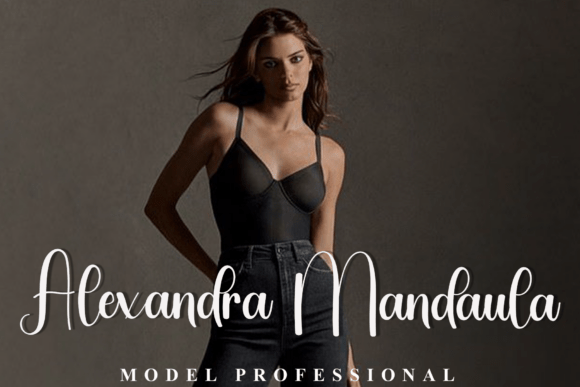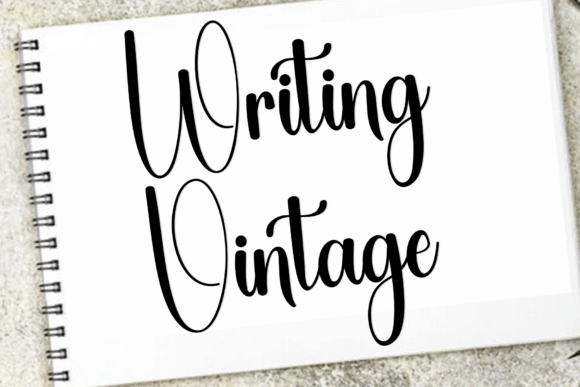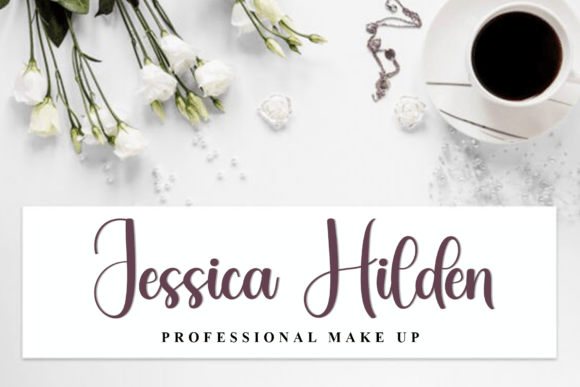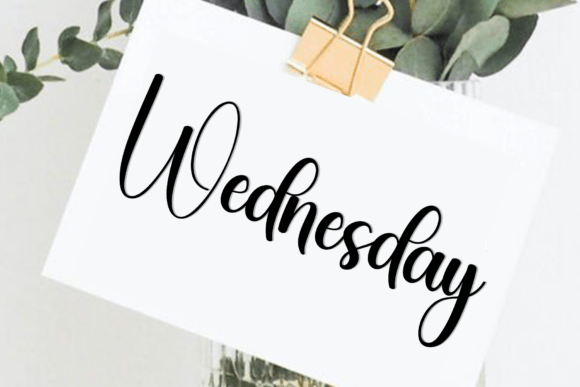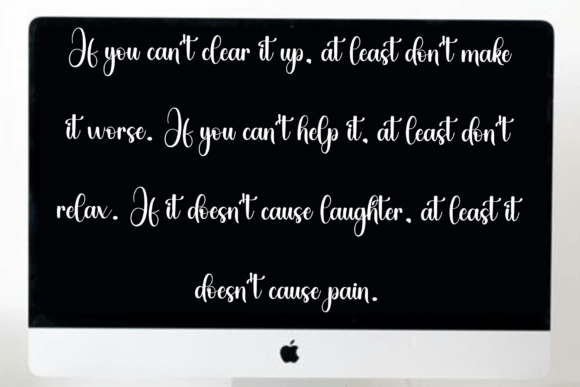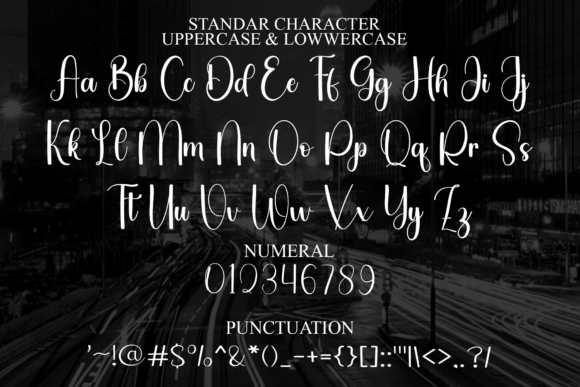
Introducing Country Farmhouse Font: The Perfect Blend of Casual Charm and Creativity
Are you tired of using the same old fonts for your personal projects, invitations, and social media graphics? Look no further than the Country Farmhouse Font, a casual and creative typeface that exudes warmth and friendliness. This charming font is designed to add a touch of personality to your designs, making it perfect for crafters, designers, and anyone looking to add a unique flair to their work.
The Characteristics of Country Farmhouse Font
So, what makes the Country Farmhouse Font so special? For starters, its round, playful strokes create a relaxed and approachable feel that’s hard to find in more traditional fonts. The font’s hand-drawn aesthetic adds a fun and unique touch to any design, making it perfect for projects that require a personal touch. Whether you’re designing an invitation, a social media graphic, or a personal project, the Country Farmhouse Font is sure to make your work stand out.
Key Features of Country Farmhouse Font
- Casual and Creative: The Country Farmhouse Font is designed to be casual and creative, making it perfect for personal projects and designs that require a unique touch.
- Warm and Friendly: The font’s round, playful strokes create a warm and friendly feel that’s perfect for designs that require a personal touch.
- Hand-Drawn Aesthetic: The font’s hand-drawn aesthetic adds a fun and unique touch to any design, making it perfect for crafters and designers.
Applications of Country Farmhouse Font
So, what can you use the Country Farmhouse Font for? The possibilities are endless! Here are a few ideas to get you started:
- Personal Projects: Use the Country Farmhouse Font to add a personal touch to your personal projects, such as scrapbooking, card making, and other crafts.
- Invitations: The font is perfect for designing invitations for special occasions, such as weddings, birthday parties, and baby showers.
- Social Media Graphics: Use the Country Farmhouse Font to create eye-catching social media graphics that are sure to grab attention.
- Signage: The font is also great for designing signage, such as welcome signs, directional signs, and more.
Tips for Using Country Farmhouse Font
Here are a few tips for using the Country Farmhouse Font in your designs:
- Pair it with Other Fonts: The Country Farmhouse Font pairs well with other fonts, such as sans serif fonts and script fonts.
- Use it in Large Sizes: The font is perfect for large sizes, such as headings and titles.
- Experiment with Colors: The font looks great in a variety of colors, so don’t be afraid to experiment and find the perfect color for your design.
In conclusion, the Country Farmhouse Font is a casual and creative typeface that’s perfect for designers and crafters looking to add a unique touch to their work. With its round, playful strokes and hand-drawn aesthetic, this font is sure to make your designs stand out. Whether you’re working on a personal project, designing an invitation, or creating social media graphics, the Country Farmhouse Font is a great choice. So why wait? Download the Country Farmhouse Font today and start creating your own unique designs!